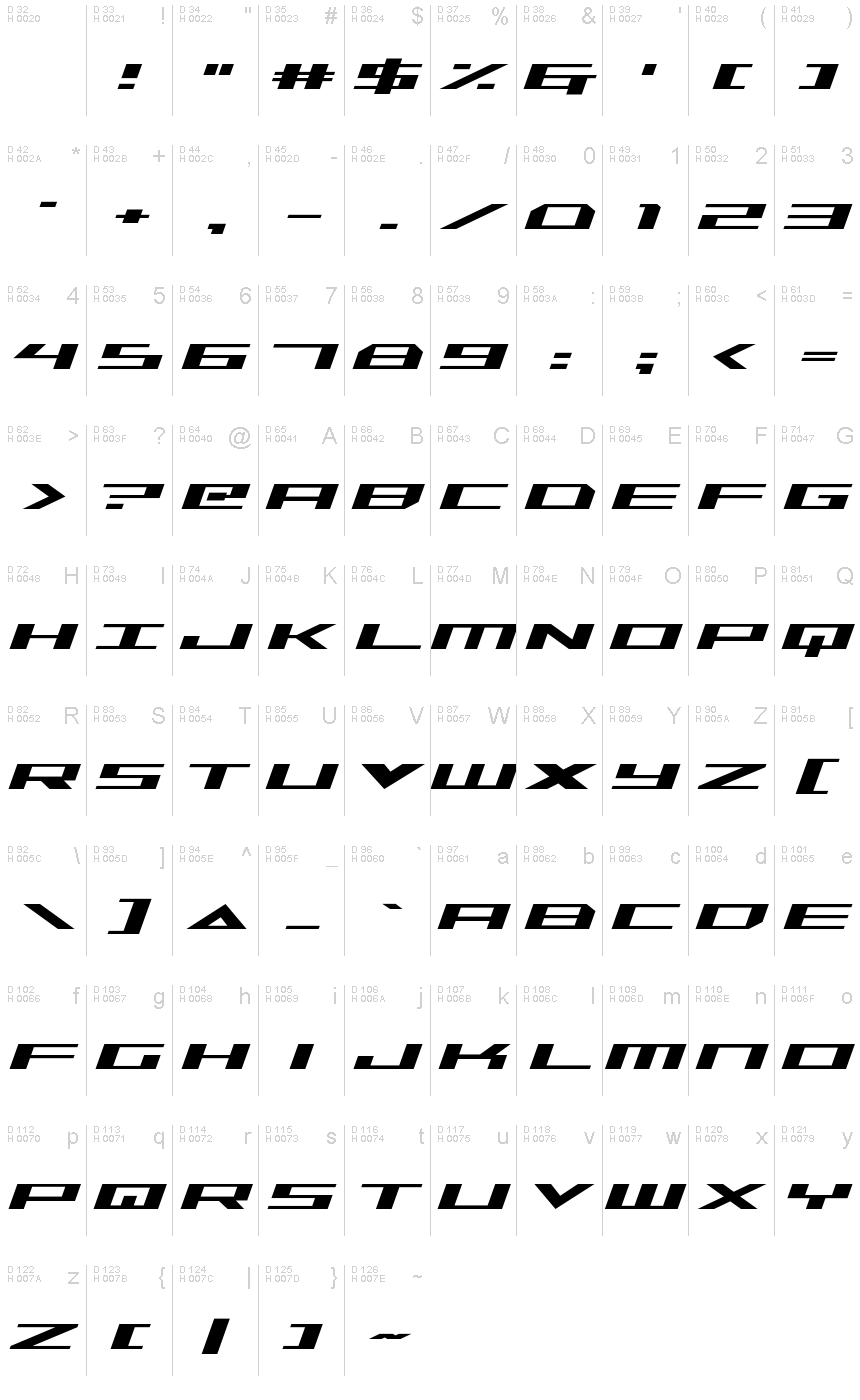
Trireme Italic by Daniel Zadorozny of Iconian Fonts is a free futuristic display font with a broad, sharply slanted silhouette. Long horizontal strokes and clipped corners give the letters a fast, engineered profile. Narrow breaks slice through several forms, recalling vents and streamlined machine panels.
Designers working in motorsport, gaming, and electronic music will find its aggressive geometry useful for posters, merchandise, and event branding. The lettering has a natural connection to racing graphics and science fiction, especially projects shaped by speed, vehicles, advanced machinery, or competitive technology.